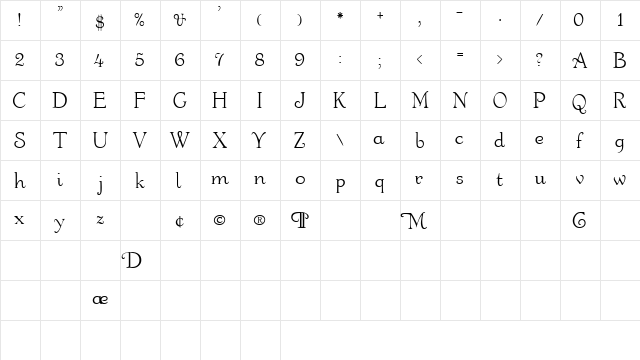
BauderieScriptSSK Regular Font Preview
BauderieScriptSSK Regular
BauderieScriptSSK Regular Font Details
Design Context for BauderieScriptSSK Typeface
BauderieScriptSSK flows with the natural rhythm of handwritten lettering, making it ideal for designs that call for warmth and personal expression.